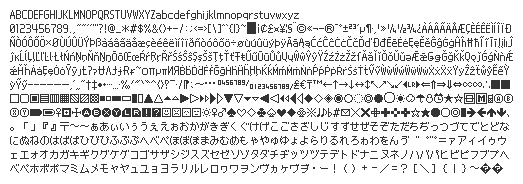
Font name: | NDS12 |
Author: | Caveras |
Note by Caveras | |
NDS12 is a sleek sans-serif pixel font recreation based on the original system font of the Nintendo DS handheld. This font includes full sets of the Japanese hiragana and katakana alphabets and countless additional characters, diacritic variants, buttons, arrows, unique glyphs, and many more, each one of them designed to match the spirit and style of the original font design. To recreate the original pixel appearance of this font, I recommend to choose font sizes that are multiples of 10pt and avoid any anti-aliasing or other font smoothing methods. Features: • 799 characters total • Proportional sans-serif typeface • Countless additional special characters, diacritic variants, etc. • Complete monospaced Japanese hiragana and katakana character sets • Buttons, arrows, unique glyphs, and many more Please contact me for any commercial use of my fonts. Copyright © 2016 Caveras. All rights reserved. |